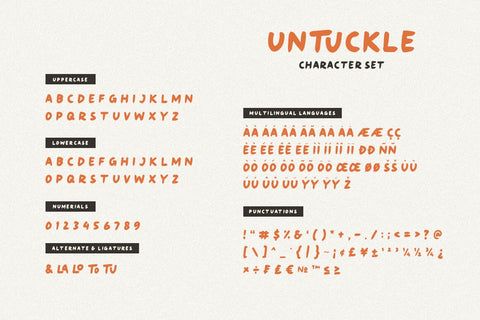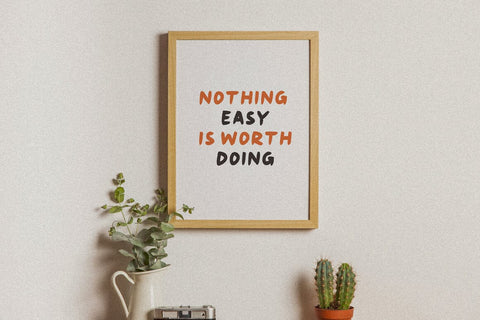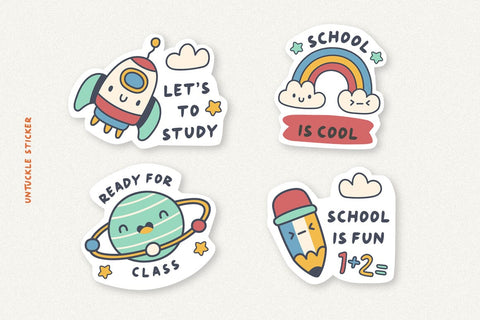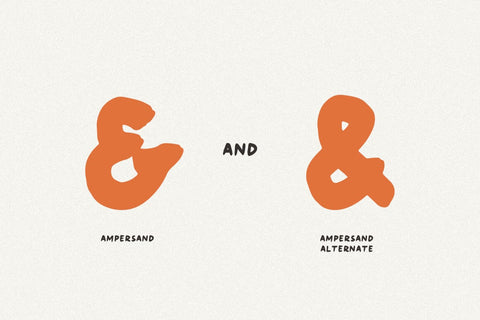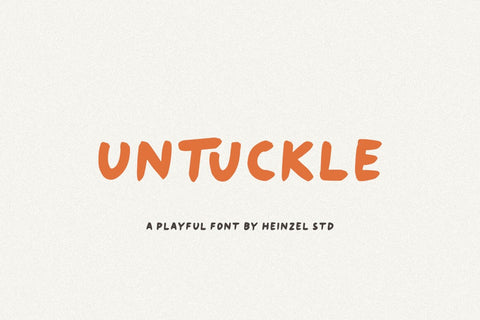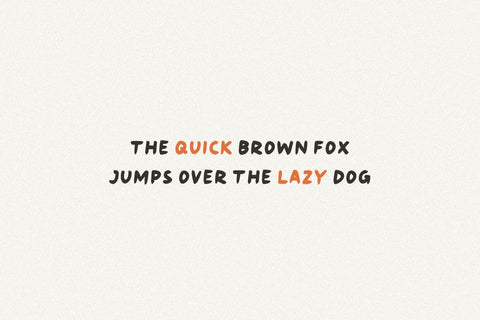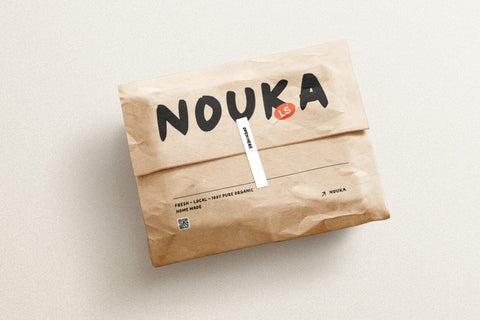
Untuckle Playful Font
Untuckle is a playful and natural handwritten font. This font is perfect for creating logos, watermarks, branding, wedding invitations, quotes, taglines, or anything else. Let's make something beautiful project with this.
Untuckle Features :
• Uppercase and Lowercase
• Numerals and Punctuations
• Ligatures and Alternate
• Multilingual Support
This character set supports the following 21 languages: Afrikaans, Basque, Breton, Catalan, Danish, Dutch, English, Finnish, French, Gaelic (Irish, Scots), German, Icelandic, Indonesian, Irish, Italian, Norwegian, Portuguese, Saami (Southern), Spanish, Swahili, Swedish.